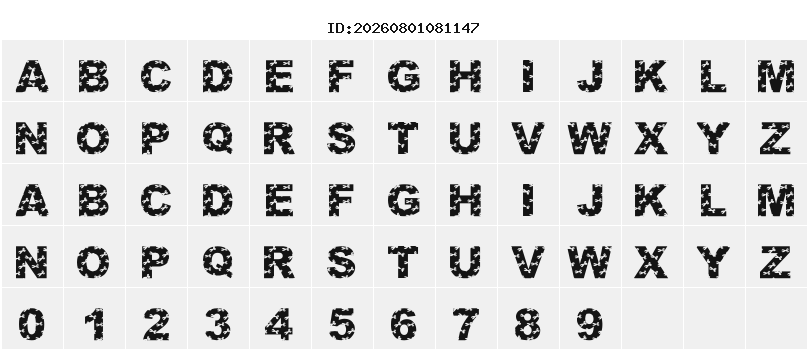
LMS Cut It Out Preview
• Font Name: LMS Cut It Out
• Full Font Name: LMS Cut It Out
About LMS Cut It Out.ttf
LMS Cut It Out.ttf is a modern, elegant sans-serif font designed for ultimate readability and visual harmony. Perfect for branding, headlines, web design, and print materials.